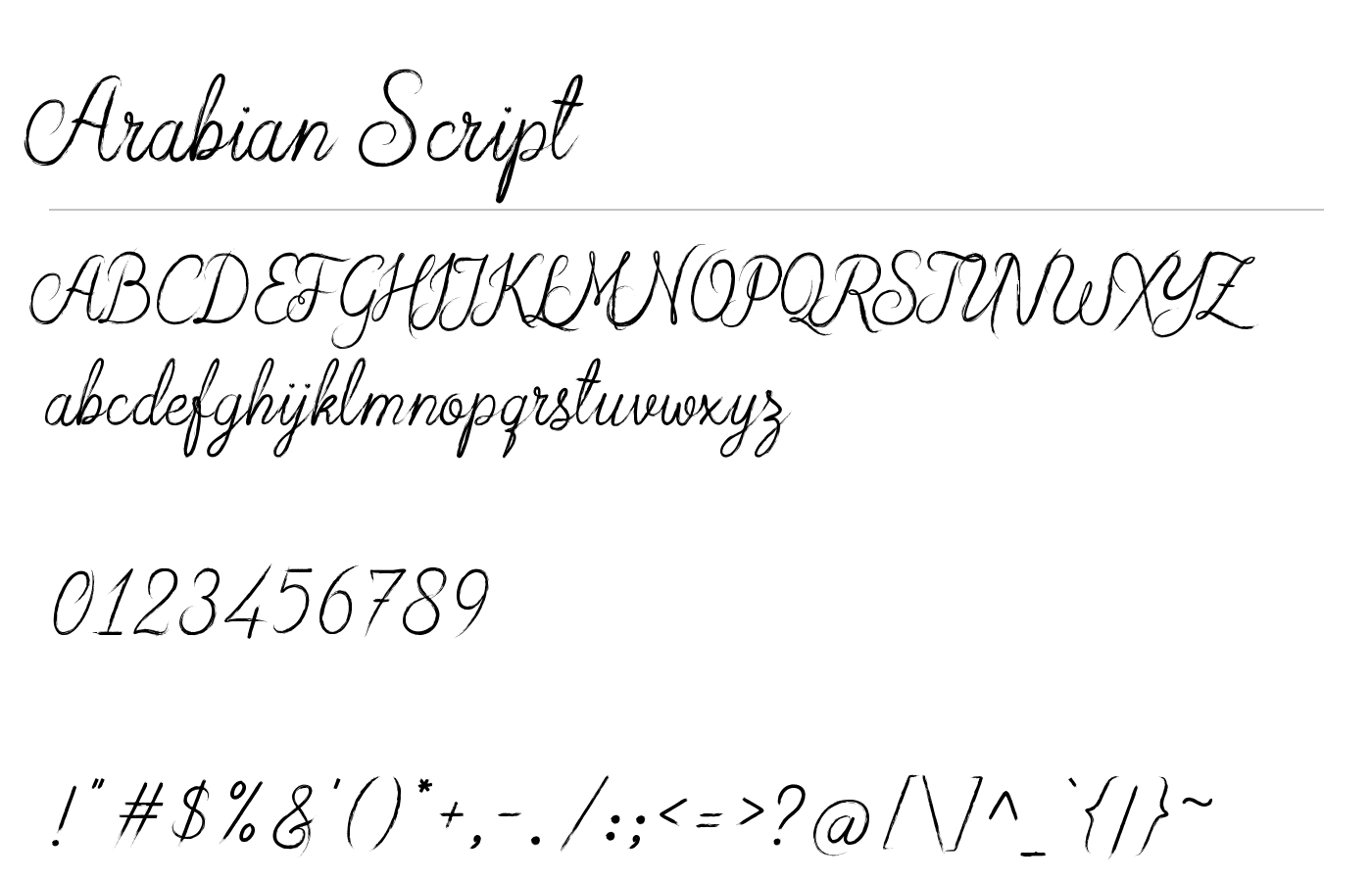
Arabian Script is an elegant, light-weight cursive font with flowing, delicate strokes that create a sophisticated, handmade feel. Its tall, narrow letterforms and subtle variations in line thickness convey a refined, graceful style ideal for luxury branding, invitations, and editorial headlines where a personal, artistic touch is desired. This font works best in contexts that benefit from a stylish, distinctive script that blends classical charm with modern flair.
Arabian Script Font
About Arabian Script Font
| Font family | Arabian Script Font |
| Designer | Darwinoo |